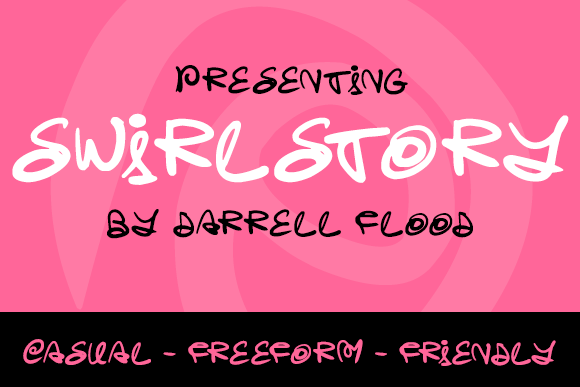
About Swirlstory Font
Swirlstory is an energetic and swirling font, full of loose loops and curls. Perfect for adding a splash of quirky visual fun to your projects, Swirlstory is an adaptable script style that you’ll find yourself coming back to time and time again.